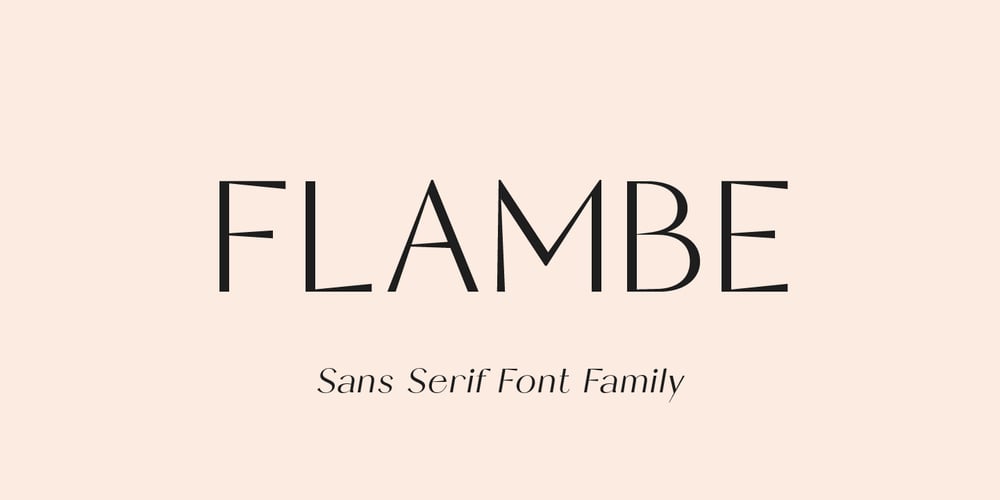
Flambe
Flambe Font Family was designed by Pavel Larin and published by Larin Type Co. Flambe contains 8 styles and family package options. Flambe is an elegant, modern, and expressive contrast sans-serif font family, and a great fashionable solution for your project. It includes upright and Italic style, each of them has four weights from light to bold. This is a multi-purpose font that is perfect for fashion project, it is contrasted, modern and easy to read. With it, you can create logos, banners, use in advertising, packaging, book covers and magazines, headings, descriptions and much more.